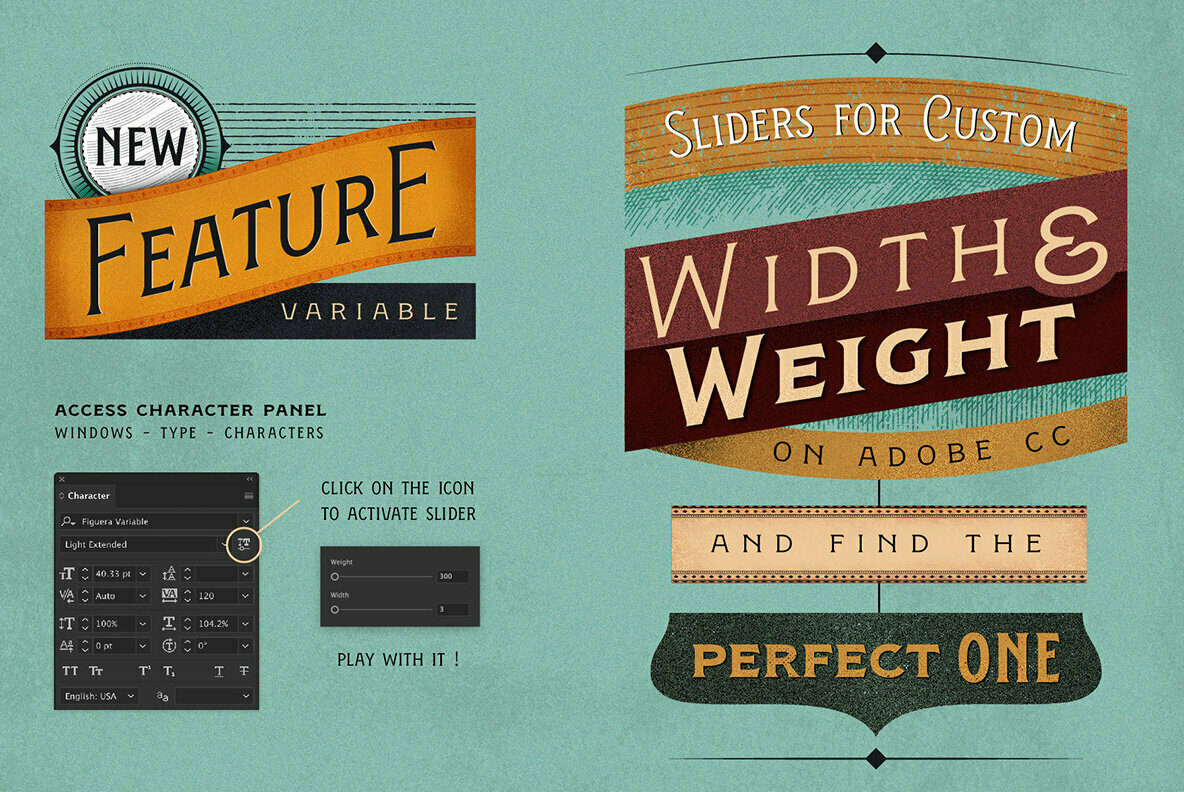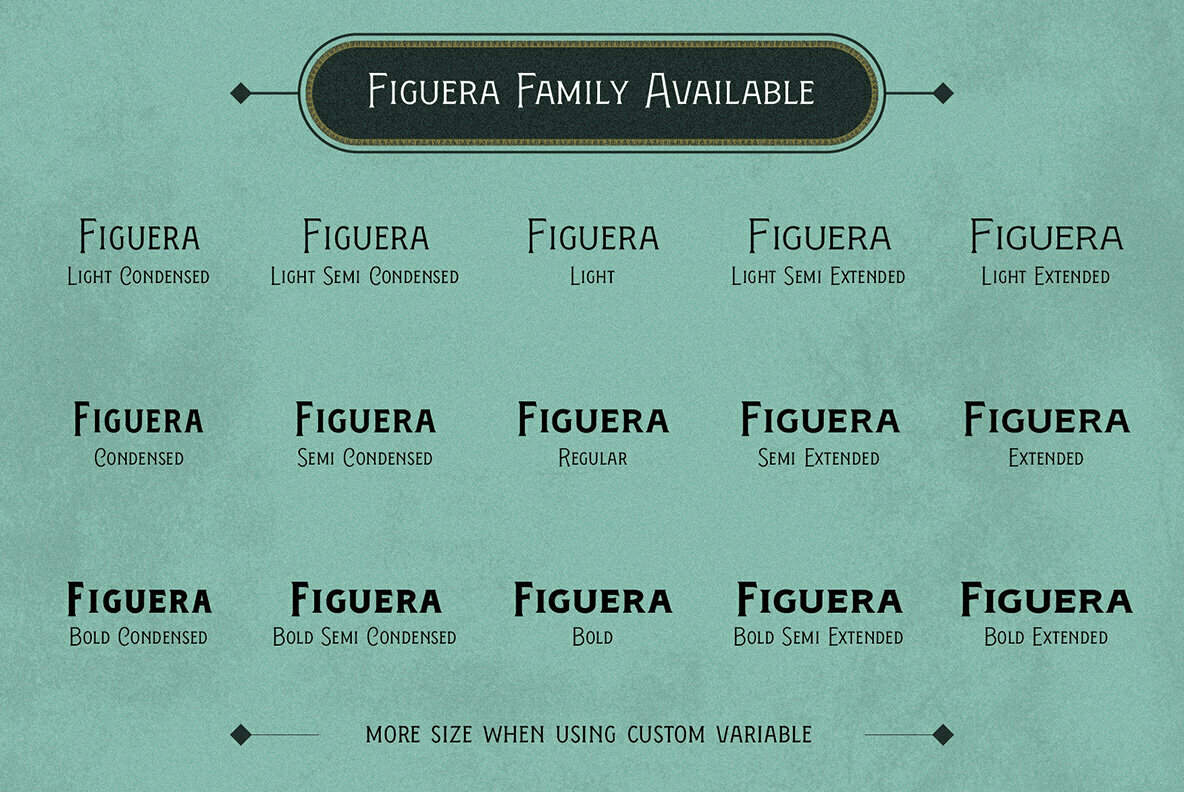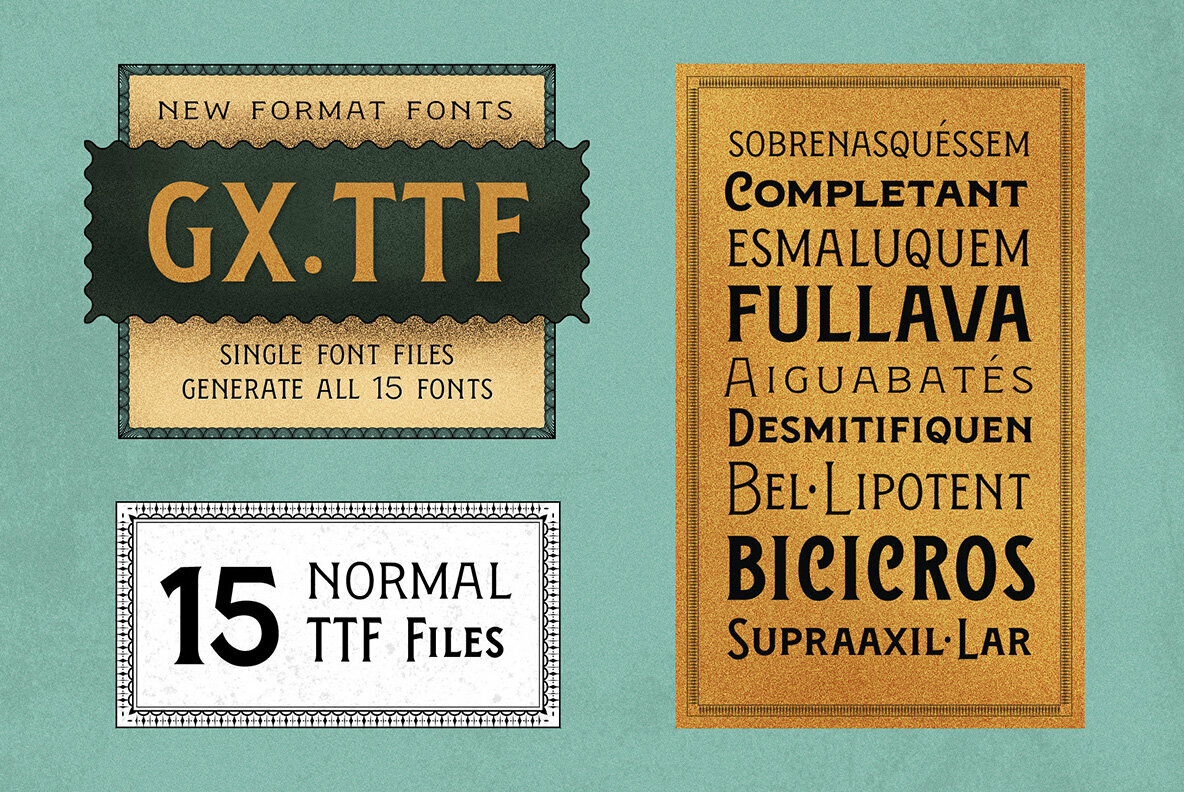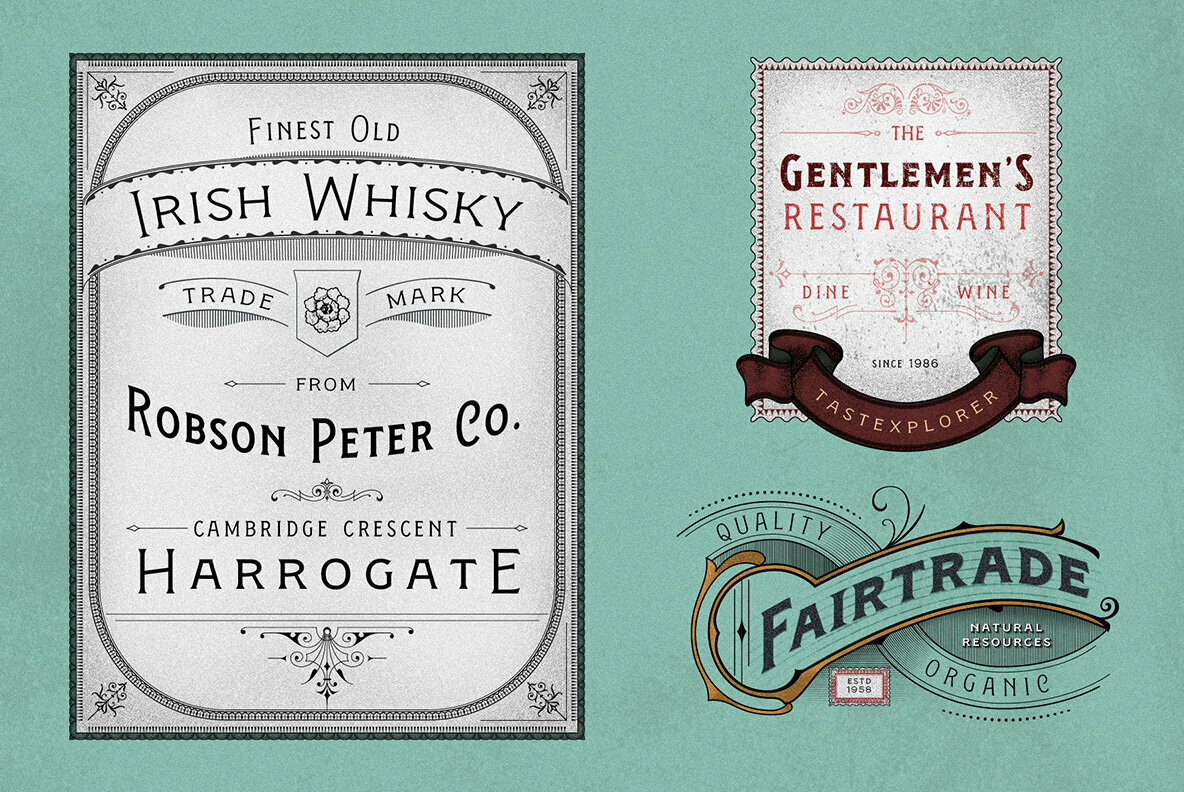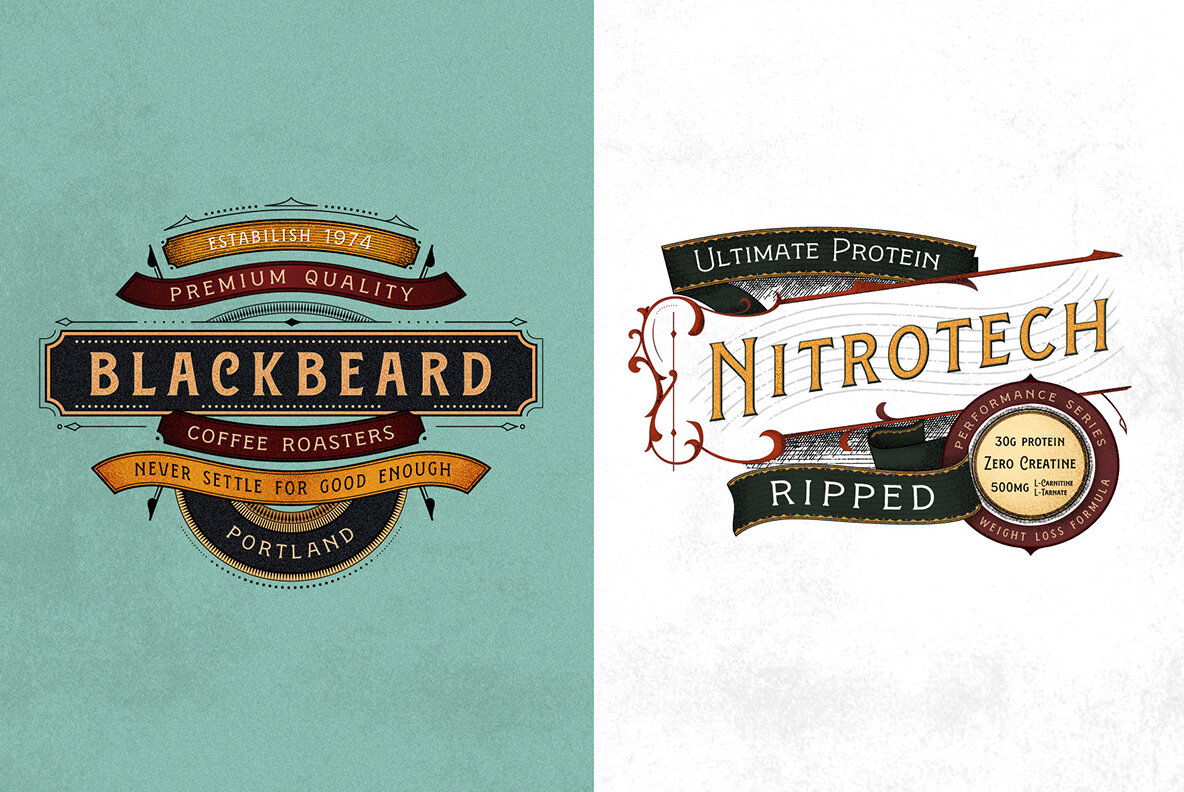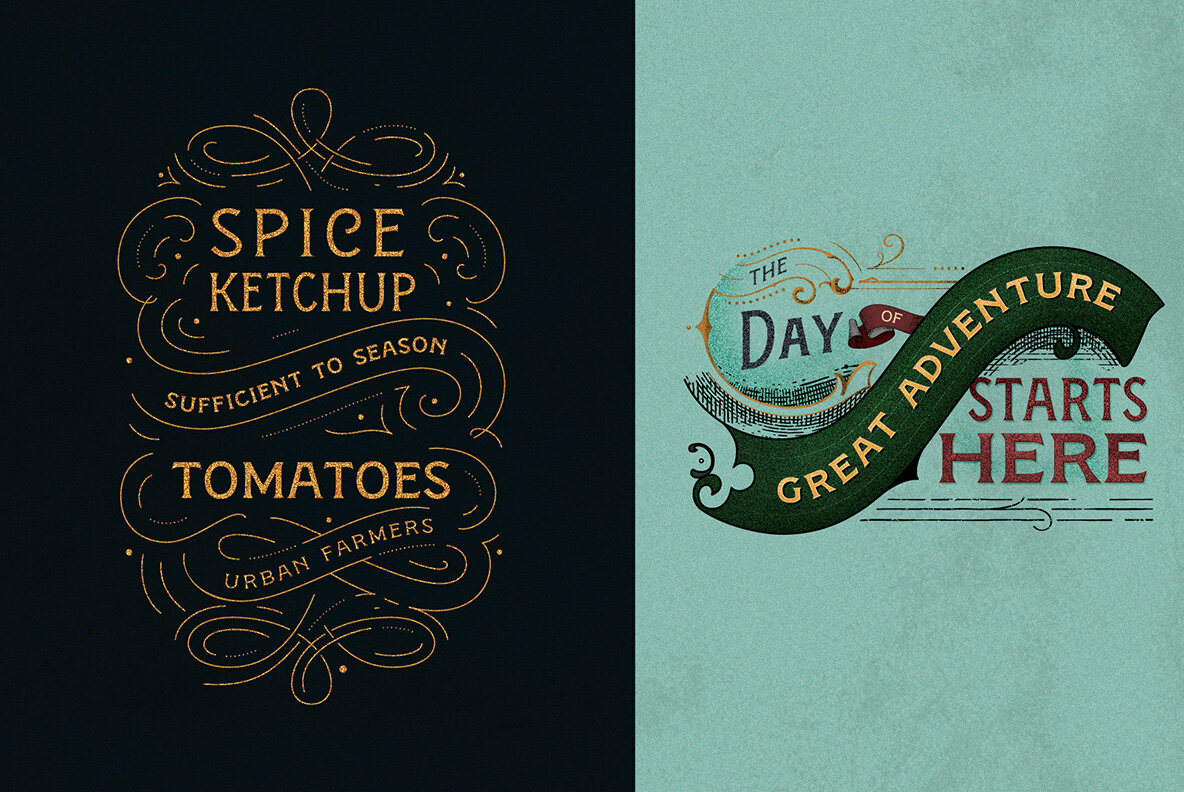
Figuera Variable Font
Figuera Variable are inspired with an Serif victorian style of typefaces. With a different width and weight you can make your design are more fluid within just only use a single family fonts. Comes with different format and also Bonus Borders.
It’s a brand new fonts comes with a new Variable Features. Variable that makes you create an custom width and weight aside in the available font files.